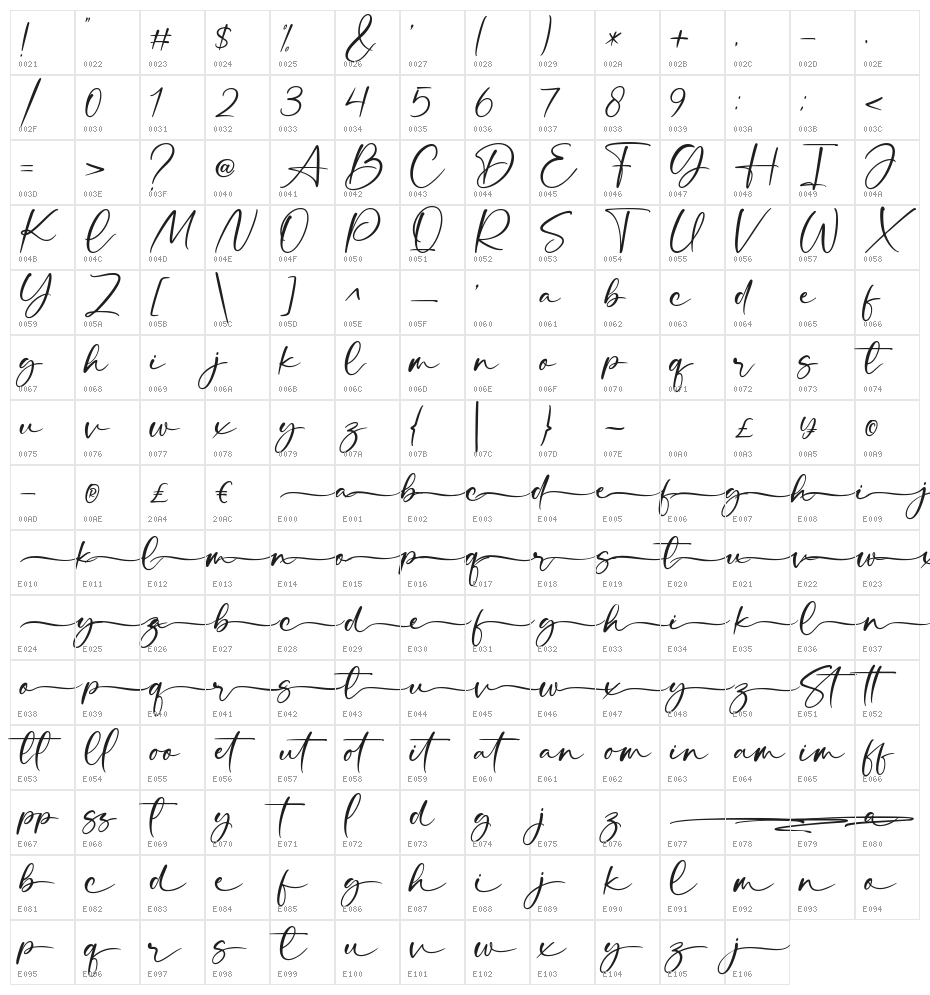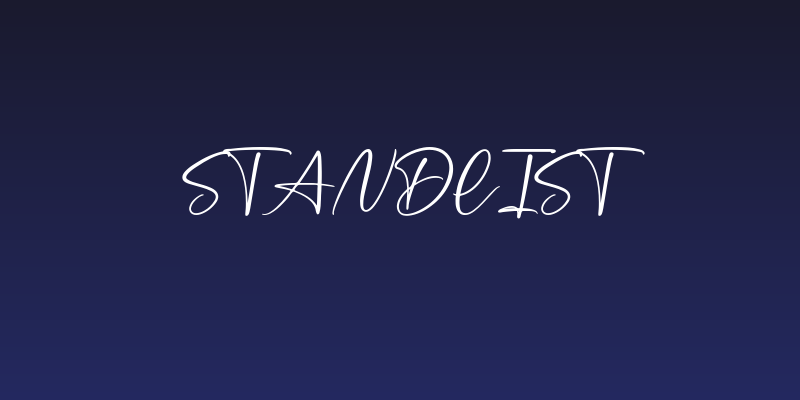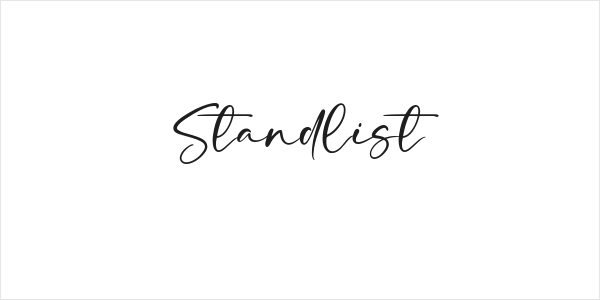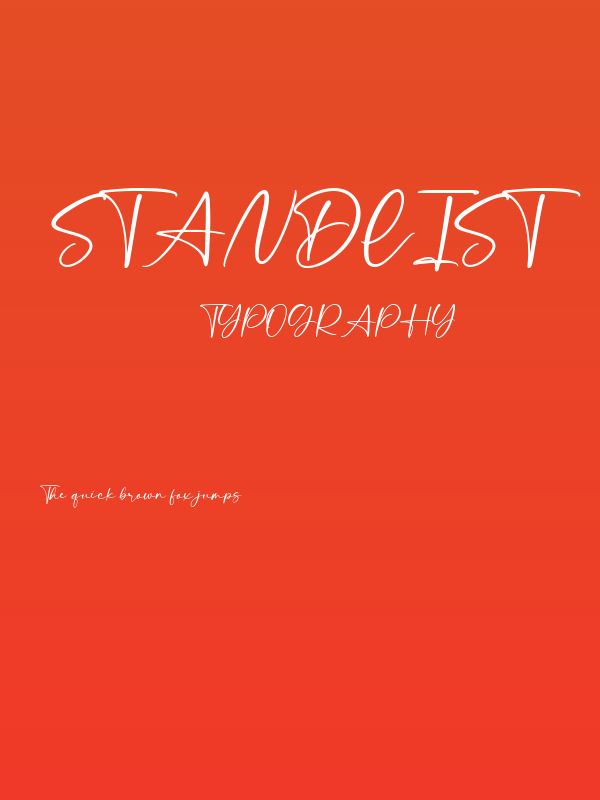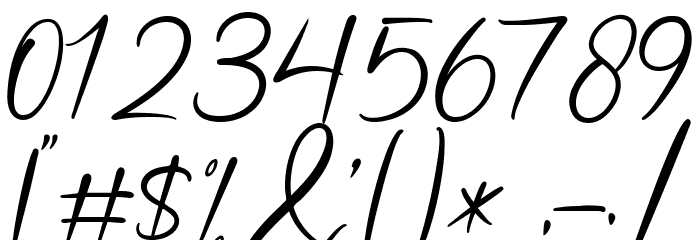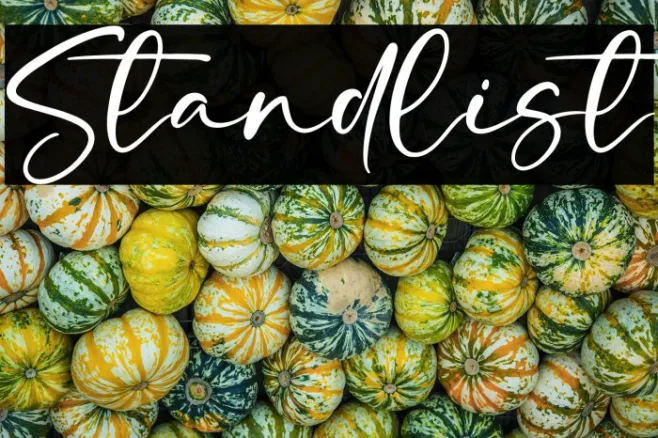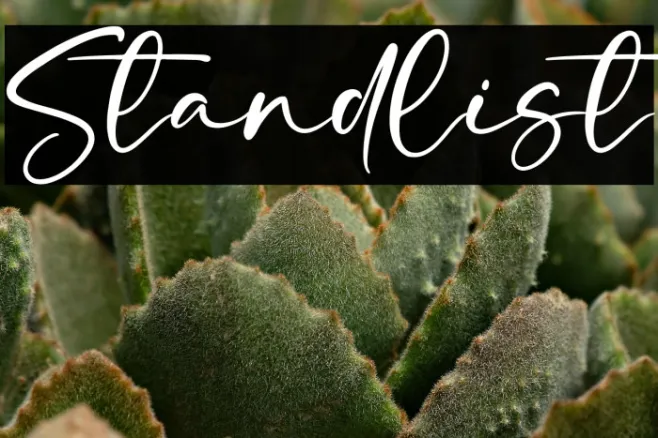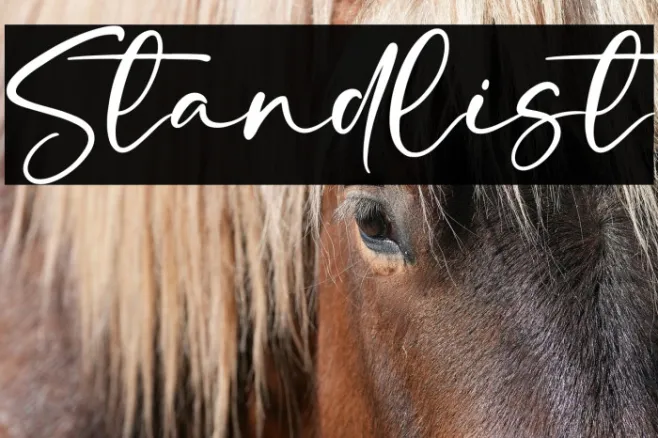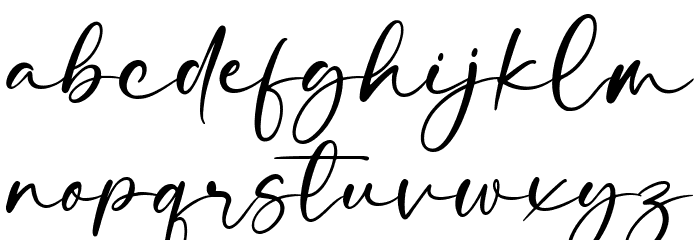
Standlist Font
Standlist Description
This font features a flowing, cursive style with a modern and elegant touch. The letters are connected, creating a smooth and continuous script that is both stylish and readable. The uppercase letters are slightly more elaborate, with graceful loops and curves, while the lowercase letters maintain a consistent flow. The numerals are designed to match the script's fluidity, making them blend seamlessly with the alphabet. Special characters are included, maintaining the same elegant style. This font is perfect for projects that require a personal and sophisticated touch.
| Proposed Projects | Ideal for wedding invitations, branding, greeting cards, and elegant logos. |